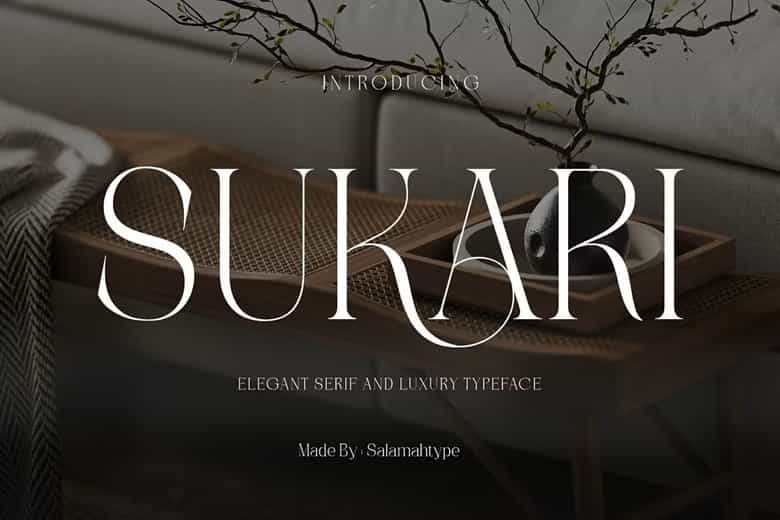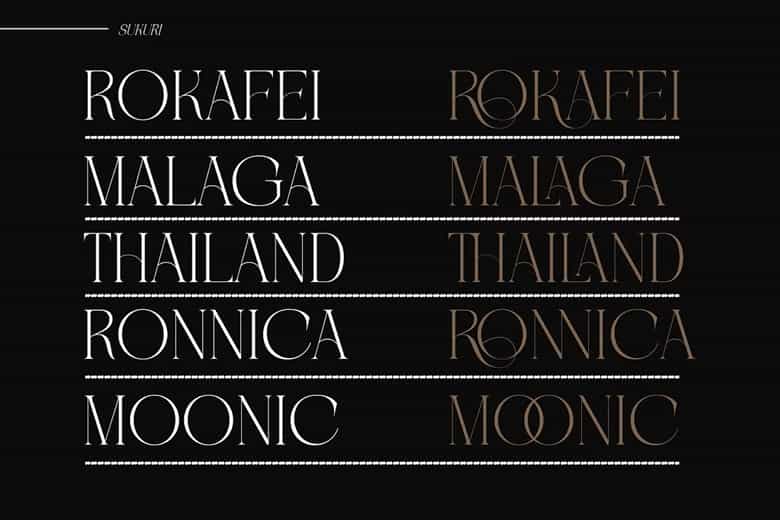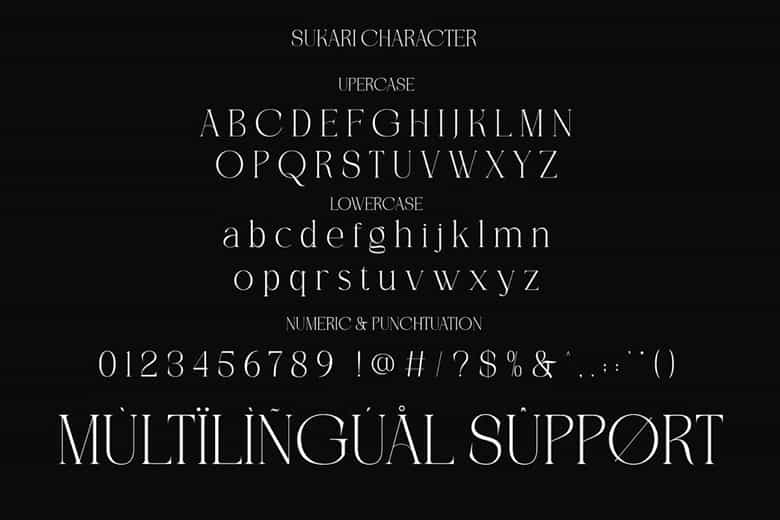
Sukari is a beautiful serif typeface that has been influenced by the contemporary designing style. Sukari font is designed with thinner lines and beautiful capital letters it adds a new and elegant look to ones creativity. It forms the basis of designing an on-trend logo, a beautiful wedding invitation, or a fashionable cover of a popular magazine.